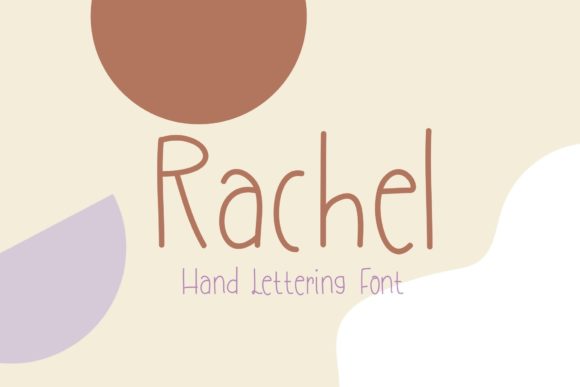
19 Best Cricut Font Styles: The Ultimate Cute Font Collection for Crafters
In this comprehensive roundup, we are unveiling the 19 best Cricut font styles available today. Whether you are using a high-end Cricut machine or crafting digitally in tools like Procreate and Goodnotes, these stunning selections are clean-cutting, easy to weed, and absolutely bursting with personality. From whimsical scripts to bubbly display styles, let’s dive into these handpicked favorites and find the next beautiful addition to your creative library!
Bristol Font: The Cute Serif Font Perfect for Cricut Crafting
If you are looking for a typeface that flawlessly blends sophistication with a playful charm, meet Bristol. Bristol is an elegant and bold serif font that instantly elevates any creative project.
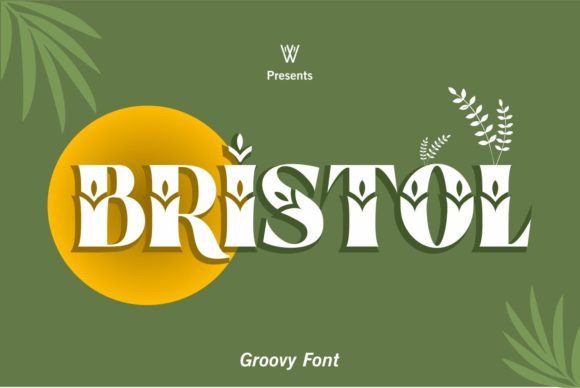
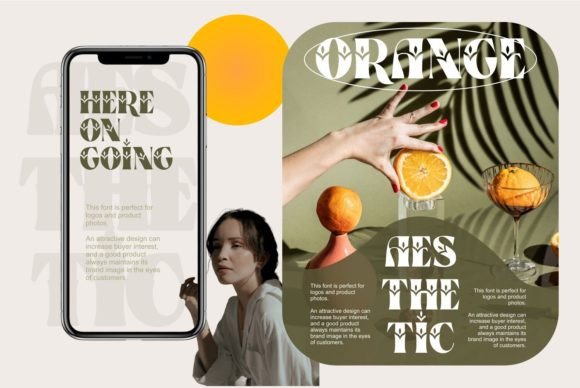
Fall in love with its incredibly versatile style and use it to create gorgeous wedding invitations, beautiful stationery art, eye-catching social media posts, and much more! Because of its clean yet whimsical lines, it is also an absolute dream for DIY enthusiasts looking for a cute and reliable font to use with Cricut machines and vinyl cutting. Whether you are designing elegant printables or crafting custom merchandise, the Bristol font brings a touch of magic to every piece.
Shortcake Font: A Whimsical Addition to Your Script Fonts Collection
Introducing Shortcake, the perfect choice if you are looking for a unique and adorable handwritten font for your next design! This cute and whimsical script font is just what you need to add a touch of effortless charm to your next crafting project.
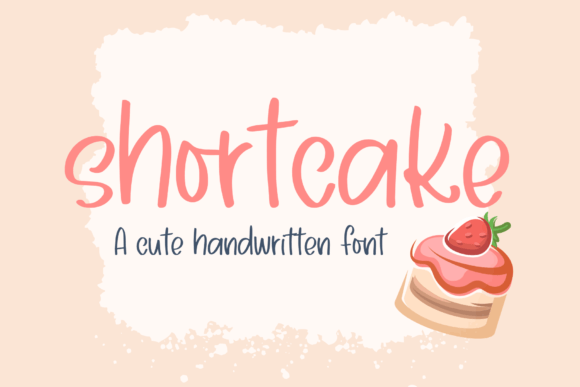
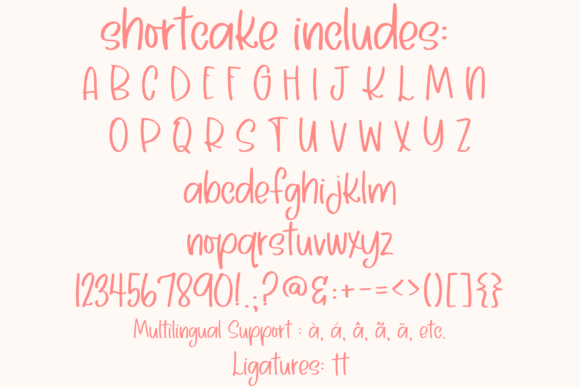
Whether you’re creating custom cards, personalized gifts, or unique home decor, this delightful handwriting style is sure to make your designs stand out. It is fully compatible and optimized as one of your go-to Cricut fonts, meaning you can start creating beautiful, high-quality projects that are sure to impress. Add Shortcake to your creative toolkit today and elevate your DIY game with ease!
Nathan Font: The Ultimate Cute Font for Creative Projects
Say hello to Nathan, a childish, easy-to-read display font that conveys impeccable friendliness from the very first glance. This playful typeface is bound to bring a cheerful, lighthearted energy to any layout you feature it in.
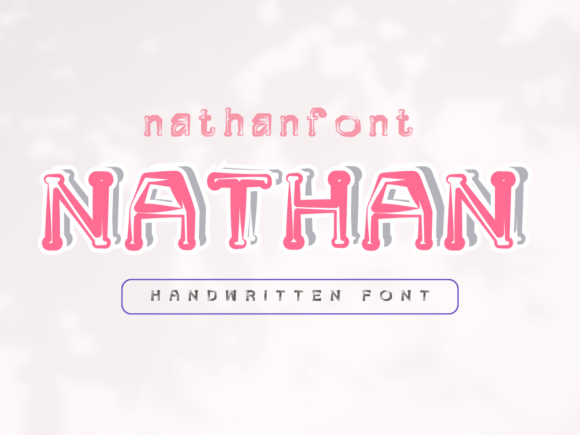
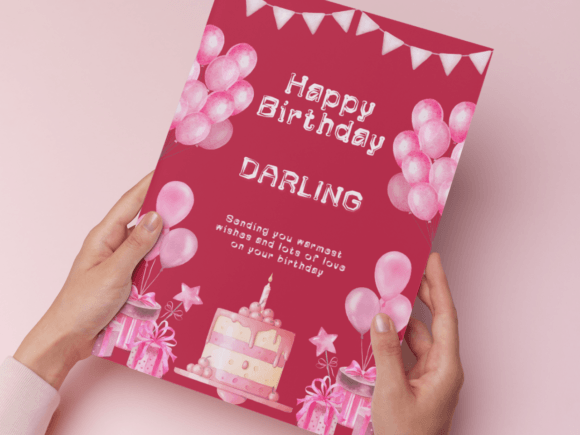
Whether you’re using it for crafts, digital design, school presentations, or making heartwarming greeting cards, this versatile choice has the potential to become your favorite go-to font, no matter the occasion. It is also an excellent cute font choice to add to your Cricut font collection, making it incredibly easy to weed and cut for all your joyful DIY vinyl and paper crafting projects.
Mocha & Espresso Font: A Charming Pick for Your Script Fonts Library
Meet Mocha & Espresso, a delightful handwritten style designed to inject instant energy into your creative projects! As a charming and cute font, this playful and fun handwriting style adds a wonderful touch of whimsy and distinct personality to any canvas it touches.
If you are looking to expand your toolkit, it makes a must-have addition to your Cricut font and script fonts collection. Whether you’re crafting personalized cards, scrapbooking, or designing custom SVG files, this energetic typeface will bring your creations to life, unlocking endless possibilities for all your artistic endeavors.
Honey Lemon Font: The Sweetest New Addition to Your Script Fonts
Unveiling Honey Lemon, an enchantingly sweet handwritten typeface finely crafted to fuel your creativity without limits. Ideal for bringing a touch of warmth and charm to your projects, it is the perfect match whether you’re an ardent crafter or on the quest for a delightful, flowing cursive style.
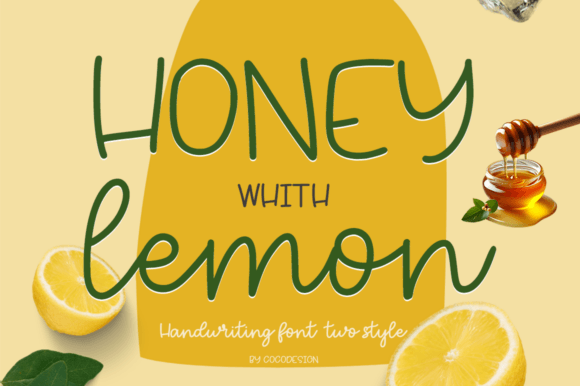
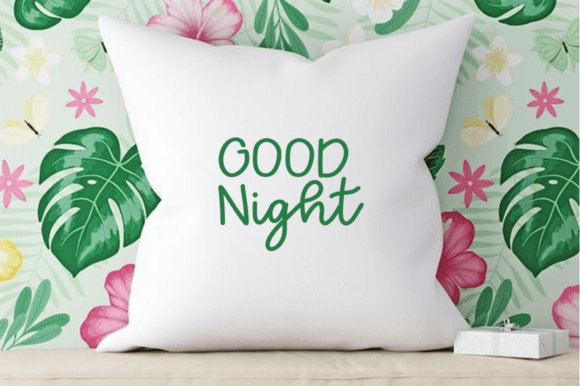
This outstandingly versatile choice adds a personalized sophistication to your custom invitations, special occasion cards, and handmade home decor. Flood your designs with a sense of heartwarming charisma using this cute font and Cricut font staple, which works seamlessly with Cricut SVGs, Goodnotes, Procreate, and numerous other platforms. Embrace Honey Lemon today to transform your everyday projects into mesmerizing masterpieces.
Bubbly Orange Font: The Playful Choice for Creative Script Fonts
Step into a world of fun with Bubbly Orange, a handwriting brush style that instantly brightens up any design. Created with a unique, rounded touch, this typeface looks incredibly cute font-inspired and brings a lighthearted, funny energy to your projects.
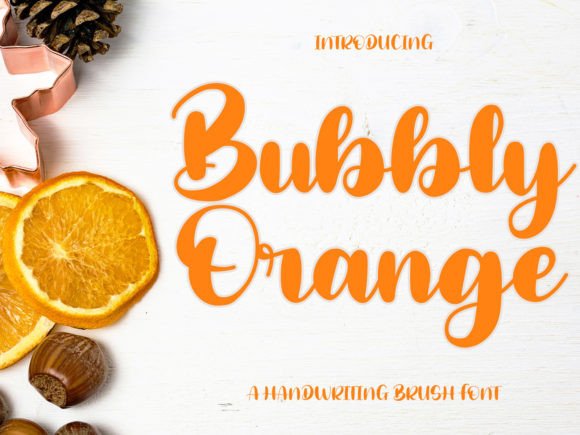
It serves as an excellent Cricut font for smooth cutting, making it ideal for apparel design, whimsical quotes, custom backgrounds, and everyday DIY crafts. Whatever your next project involves, adding this vibrant selection to your script fonts library will be a wonderful asset with the potential to enhance any creation.
Rachel Font: A Minimalist Gem for Your Script Fonts Collection